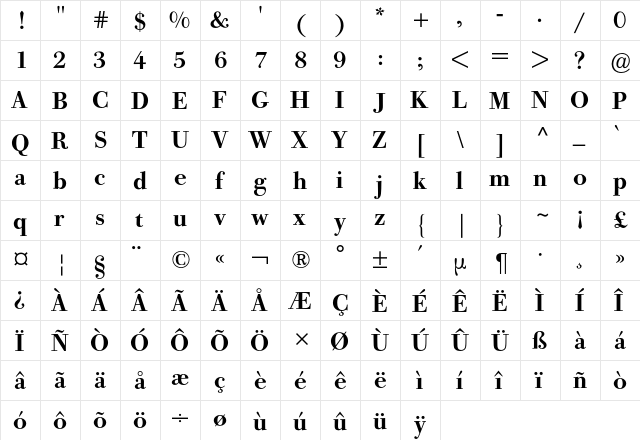
Bodoni Old Face BQ Regular
Design Context for Bodoni Old Face BQ Typeface
Bodoni Old Face BQ offers clean, dependable letterforms without strong stylistic allegiance, making it a practical choice for designers who need flexibility.
Pro Tip: Pair Bodoni Old Face BQ with a font of contrasting weight or personality to build a more expressive typographic hierarchy.